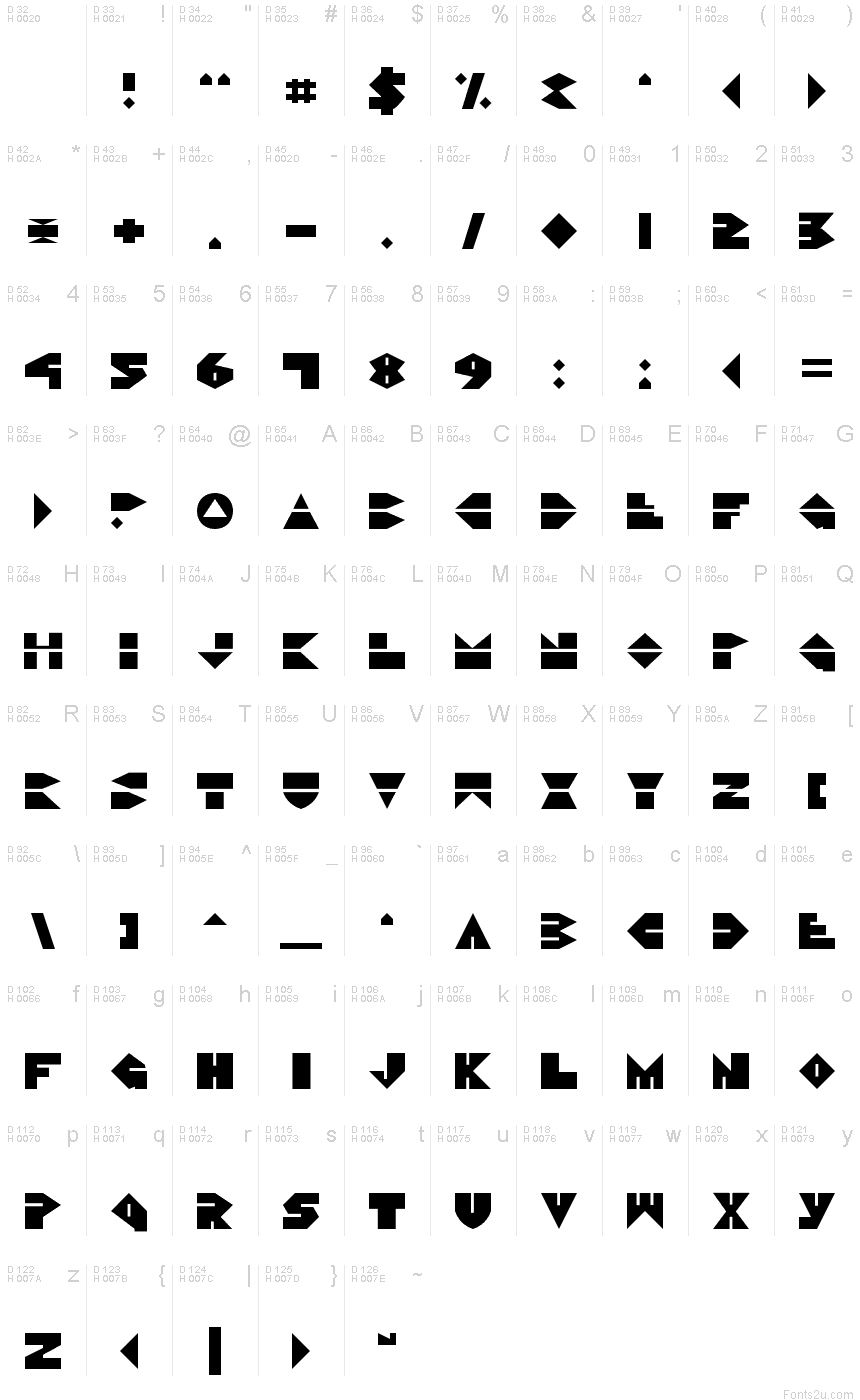
Disco Dork
Disco Dork font by Iconian Fonts is a free futuristic display font with chunky black shapes and sharp diagonal cuts that make every word feel stamped out of arcade hardware. Its squat proportions and modular rhythm give headlines a robotic pulse—playful, a little weird, and crisp enough to grab attention in a split second.
Using Disco Dork works beautifully for game titles, synthwave posters, DJ flyers, tech event branding, YouTube thumbnails, sticker packs, and merch with a retro-digital wink. This free font hits hardest at large sizes; pair it with a plain sans like Inter or Helvetica so the angular attitude stays front and center.